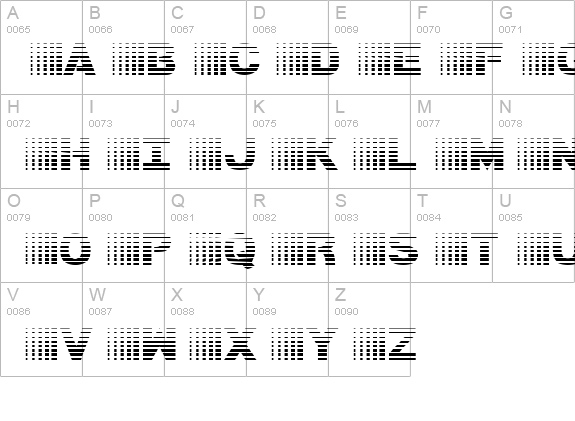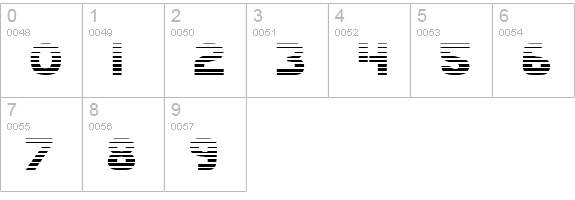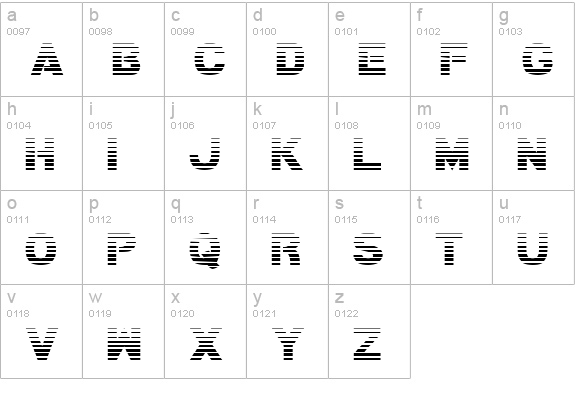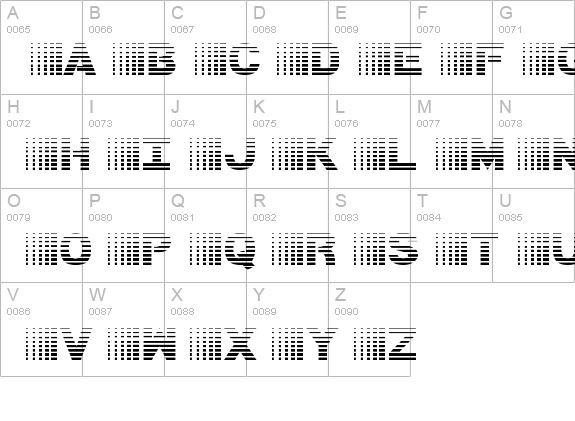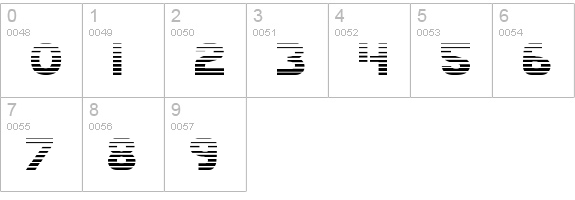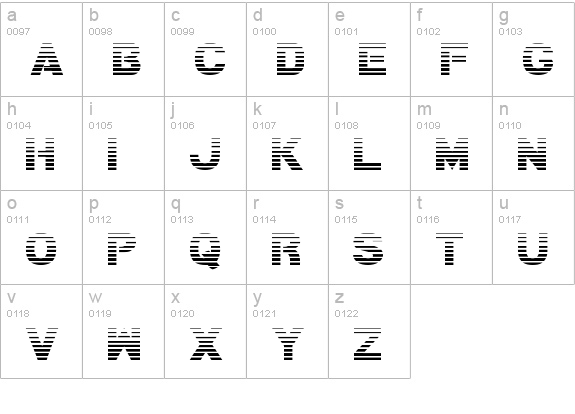
Bamf Gradient Font Details
Introducing Bamf Gradient font, a stunning display typeface that exudes modernity and sophistication. This unique font features a striking gradient effect that adds depth and dimension to your designs. Perfect for logos, headlines, posters, and more, Bamf Gradient is sure to make a bold statement. What's even better? Bamf Gradient is available for free download at FontsMarket.com. Don't miss out on this opportunity to elevate your projects with this eye-catching font. Download Bamf Gradient today and let your creativity shine!